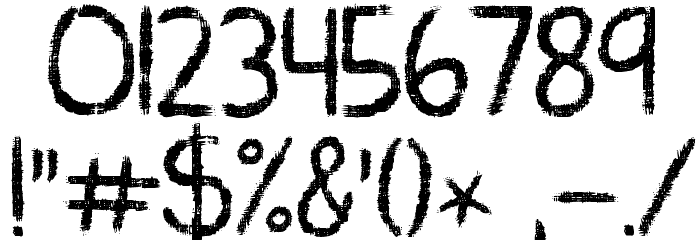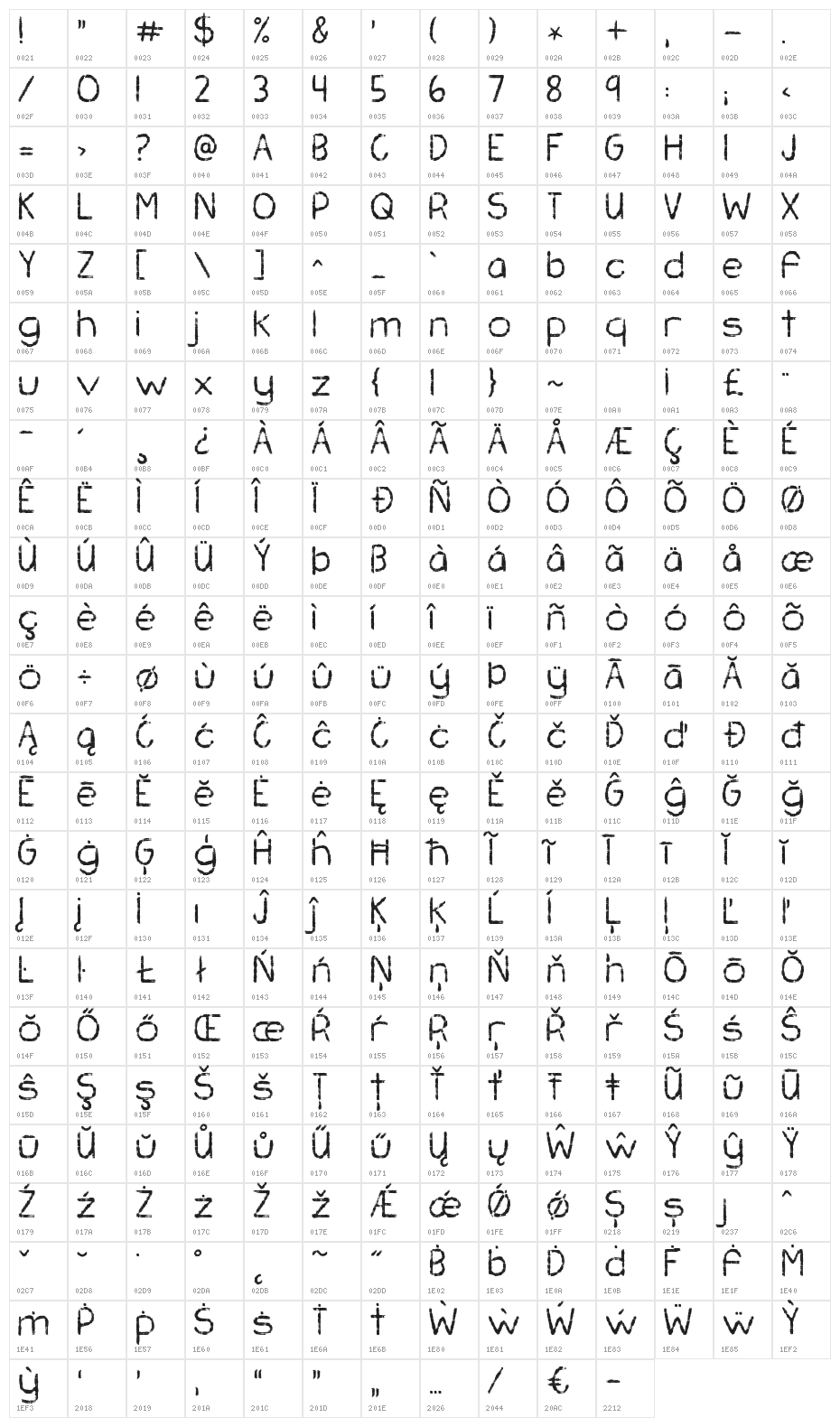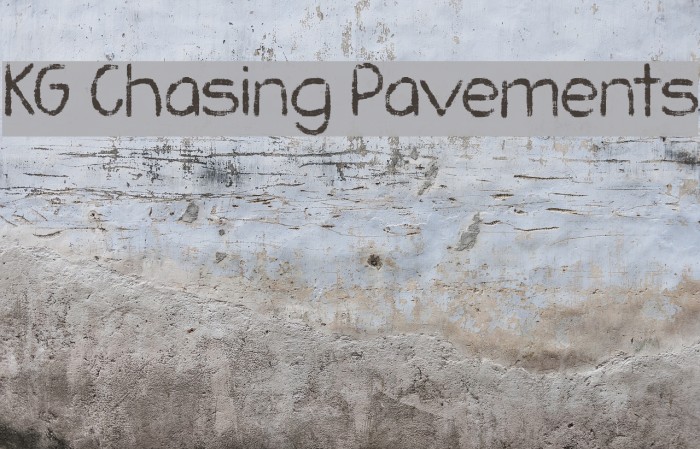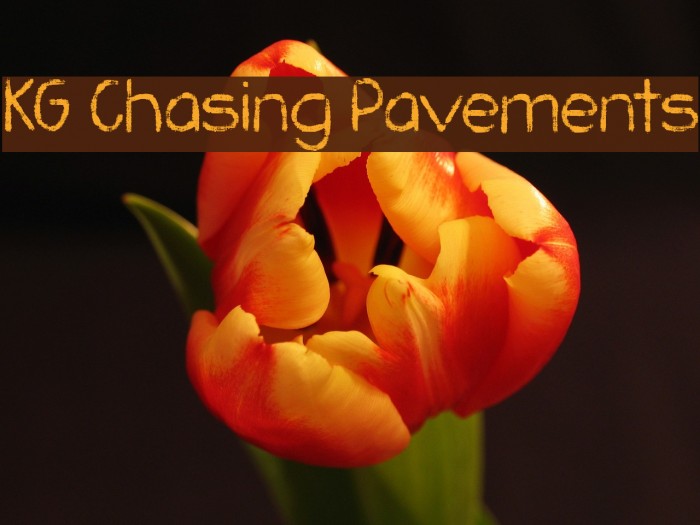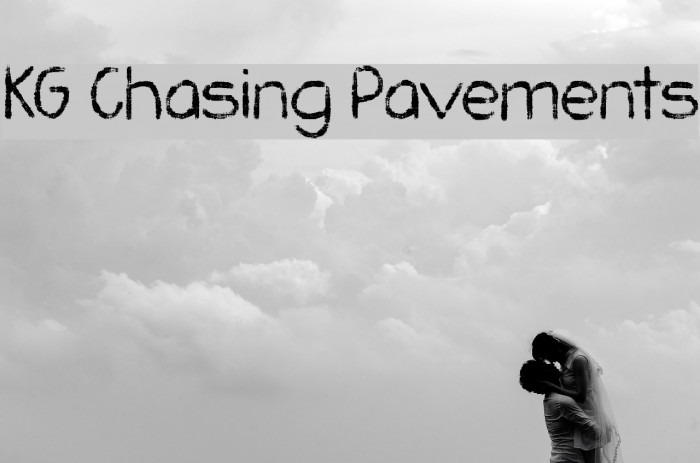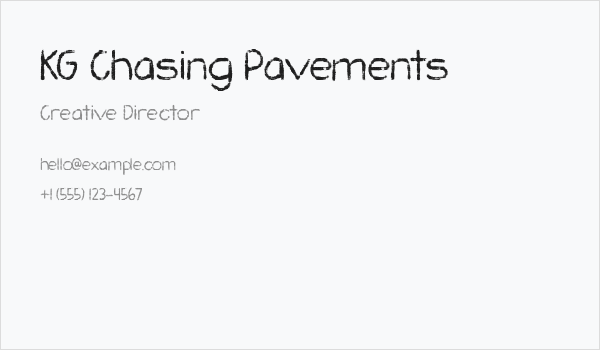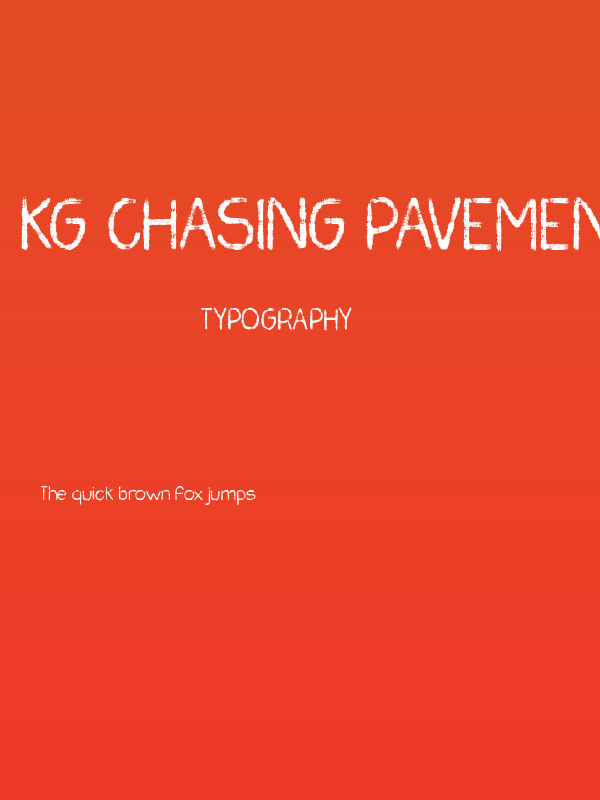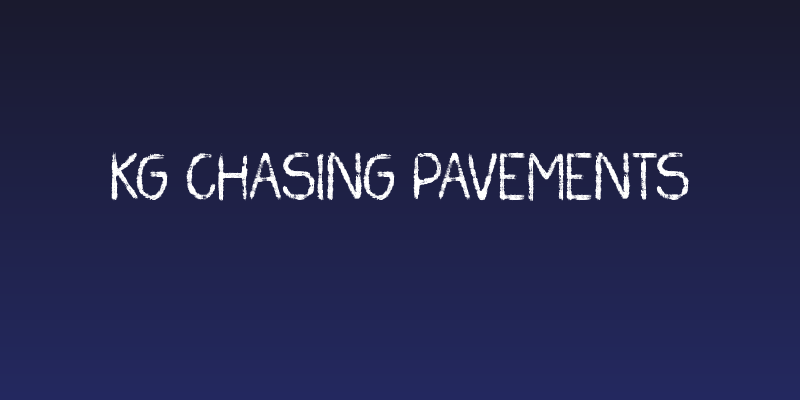
KG Chasing Pavements Font
KG Chasing Pavements Description
This font features a textured, hand-drawn appearance that gives it a unique and artistic flair. The letters are bold and slightly irregular, with a rough, sketch-like quality that adds character and depth. The uppercase and lowercase letters maintain a consistent style, while the numbers and special characters follow the same textured theme. This font's organic and playful nature makes it stand out, providing a sense of creativity and individuality. The strokes are uneven, contributing to its casual and informal look, making it ideal for projects that require a touch of personality and artistic expression.
| Overall Style | Artistic, Playful |
| Use Case | Headlines, Posters, Creative Branding |
| Proposed Projects | Ideal for creative projects such as posters, art prints, children's books, and branding materials that require a playful and artistic touch. |